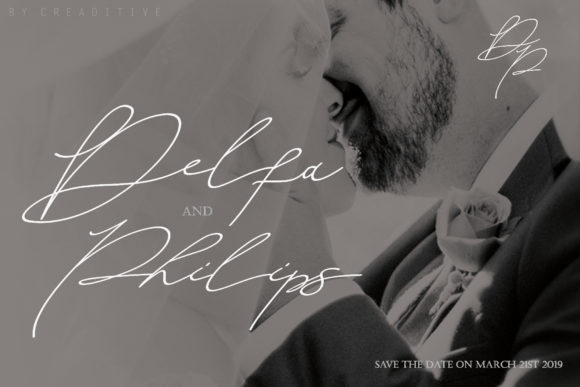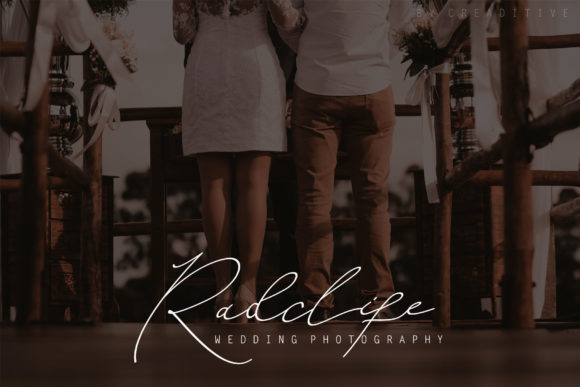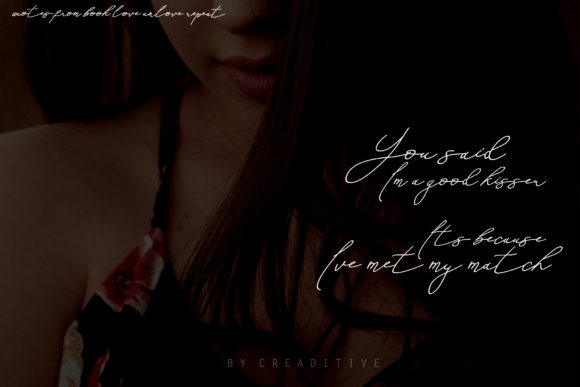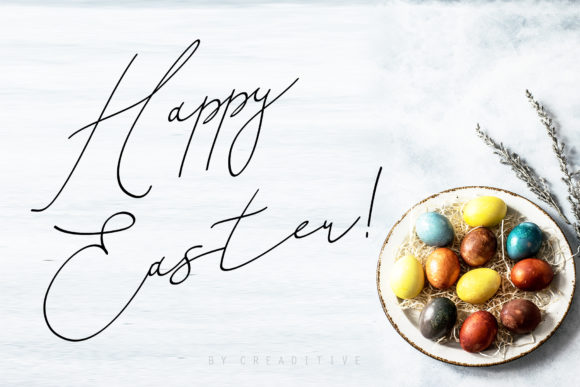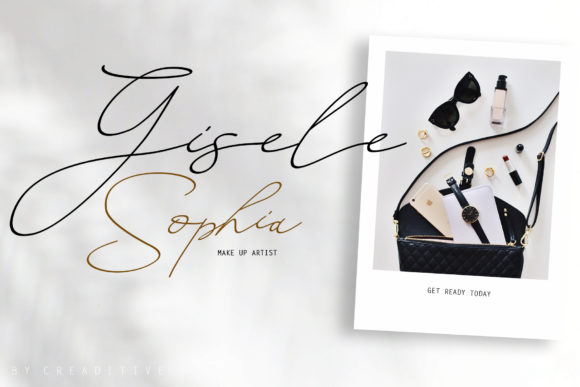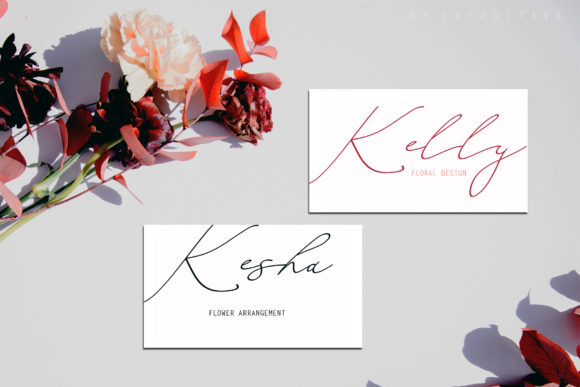
Discover the Perfect Script Font for Your Next Design Project
Have you ever been stuck in a design rut, struggling to find the perfect font to bring your creative vision to life? We’ve all been there – pouring over font libraries, searching for that elusive combination of style and substance. But what if I told you there’s a font that can elevate your designs and leave a lasting impression? Enter the Beautifulife Font, a stunning handmade script font that adds a bold touch to any project.
With its dynamic elements and unique character, the Beautifulife Font is the perfect solution for designers looking to add a personal touch to their work. Whether you’re crafting a logo, creating a wedding invitation, or designing a social media campaign, this font is sure to make your design stand out from the crowd. The Beautifulife Font is a valuable addition to any designer’s toolkit, offering endless possibilities for creative expression.
Beautifulife Font Key Features
- Font Family: Beautifulife Font, a unique and elegant script font designed for various applications.
- Unique Characteristics: Features a flowing, handwritten feel with subtle flourishes, making it perfect for creative and artistic projects.
Beautifulife Font Review
At first glance, the Beautifulife font seems like a promising addition to any designer’s toolkit. Here are some aspects where it truly shines: ✨
- Unique Character: The Beautifulife font offers a distinctive and quirky aesthetic that can add personality to a design. It’s perfect for creating a memorable brand identity.
- Legibility: Despite its unconventional appearance, the font is surprisingly easy to read, making it suitable for body text or headlines.
- Customization Options: Beautifulife font offers various style and weight options, allowing designers to experiment with different looks and feels.
However, there are some limitations that might make you think twice: ⚠️
- Compatibility Issues: Some users have reported issues with Beautifulife font displaying correctly in certain browsers or operating systems.
- Limited Font Families: The font family is relatively small, which might limit its versatility and make it less suitable for complex designs.
Overall, the Beautifulife font is a solid choice for designers looking to add some personality to their projects. While it has its limitations, its unique character and customization options make it a great addition to any toolkit. Just be aware of potential compatibility issues and keep an eye on updates to ensure seamless performance.